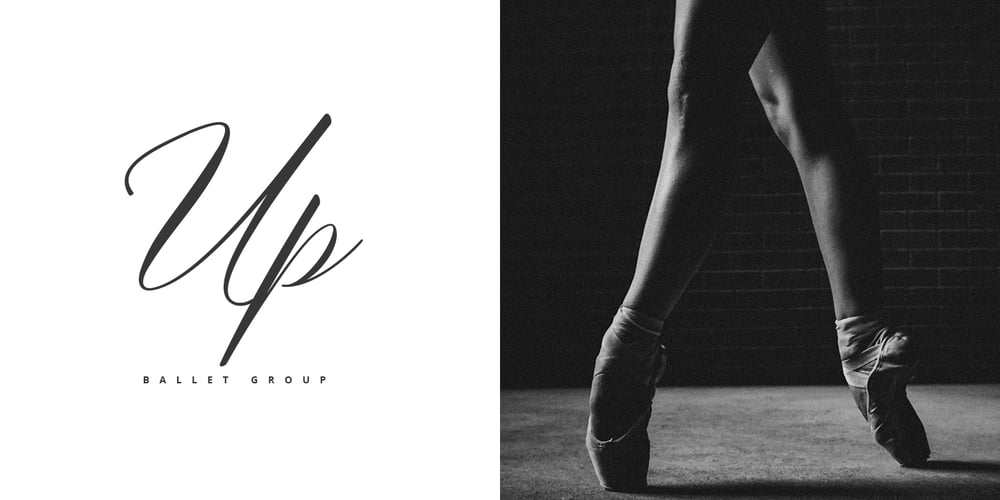
Maisharah Script Font Family was designed by Juni Fadil Putra and published by FadeLine Studio. Maisharah Script contains 1 styles and family package options. Maisharah a new Modern Script Calligraphy with its own unique flow and elegant personality 🙂 With a style like this, this font will be suitable in use for logo’s, branding projects, homeware designs, product packaging, mugs, quotes, posters, shopping bags, logo’s, t-shirts, book covers, name card, invitation cards, greeting cards, and all your other lovely projects. You can use this font for your job very easily. Because there are many features in it. It contains a complete set of lower and uppercase letters, punctuation, numbers, web fonts, and multilingual support. This font also includes several ligatures and alternative style Stylistic Set For those of you who have software that is capable of working OpenType (Corel Draw / Photoshop / Illustrator / InDesign).